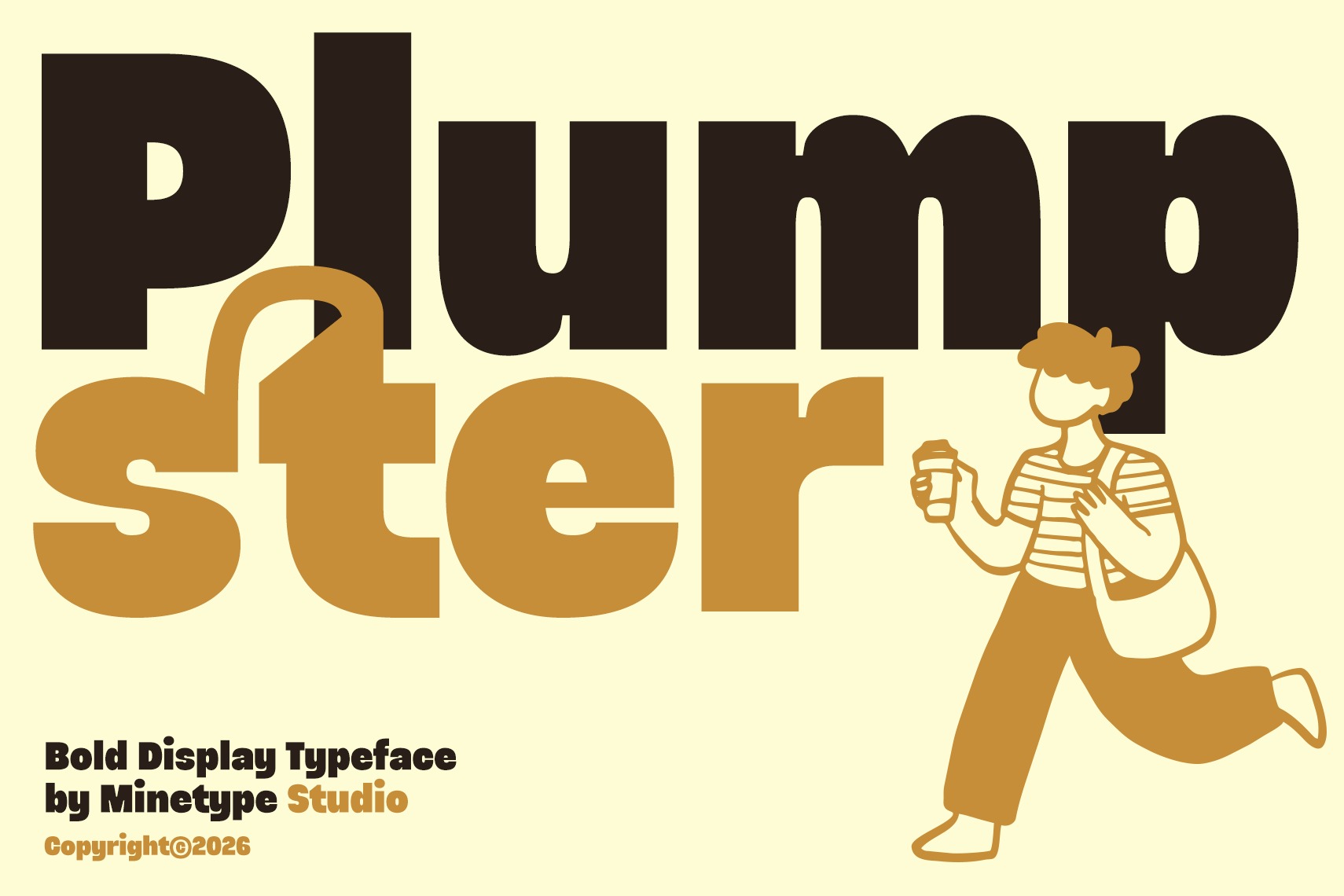
Plumpster – Bold Sans Serif Font
Plumpster – Bold Sans Serif Font is a premium-quality font developed to enhance your work with a polished, modern, and visually elevated look. Plumpster- Bold Font is a thick and powerful display font crafted to create eye-catching and impactful designs. With its chunky letterforms, bold curves, and playful personality, PLUMPSTER is perfect for posters, branding, packaging, headlines, social media graphics, editorial layouts, and any project that needs a strong visual presence.
Designed with a modern and fun aesthetic, this font delivers excellent readability while maintaining a bold and energetic style. Whether for print or digital use, PLUMPSTER helps your designs stand out with confidence and character.